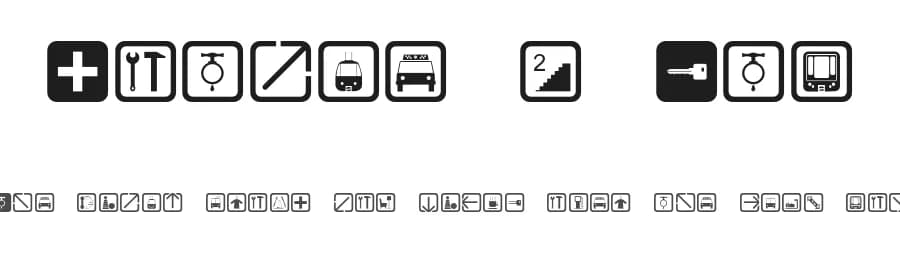
About Notice 2 Std Font
Notice 2 Std is a dingbat font designed by Denis Serikov. It includes 99 glyphs, a regular weight, OTF (CFF) format, and 104 languages. Notice 2 Std is free to download; check the license details on this page before commercial use. Dingbat fonts like Notice 2 Std work best for icons, ornaments, bullet points, and decorative accents.
| Designer | Denis A Serikov |
Notice 2 Std Font is a versatile dingbats font that works for both headings and body text. Pair it with a contrasting sans-serif or serif font to add visual interest and a clear distinction between titles and body copy.
Notice 2 Std Font
Notice 2 Std Font is a dingbats typeface by Denis Serikov, ideal for logos, invitations, branding, and creative projects.